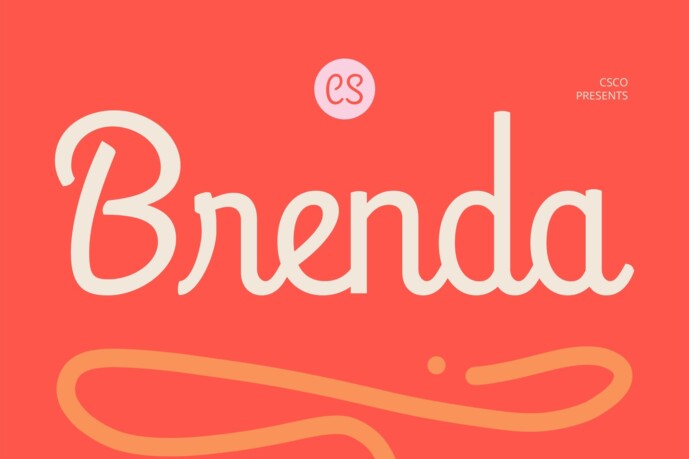
Brenda Font
CS Brenda – Script Font: Where Minimalism Meets Sweet Elegance
Contemporary Minimalist Style CS Brenda is a modern script font that embraces a clean, minimalist handwritten style. Each character flows smoothly, offering a refined and polished look while retaining the charm of personal handwriting. Its simplicity enhances its elegance, making it ideal for designers who value both clarity and beauty.
Beautiful and Aesthetic Flow Designed with soft curves and graceful movements, CS Brenda delivers a sweet and cute aesthetic. The font captures a balance between playful and professional, perfect for creative projects that need to radiate charm, femininity, and sophistication. The gentle rhythm of its strokes creates a visually pleasing, harmonious text layout.